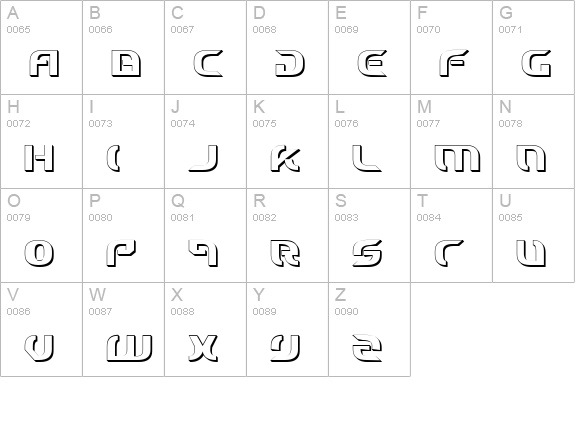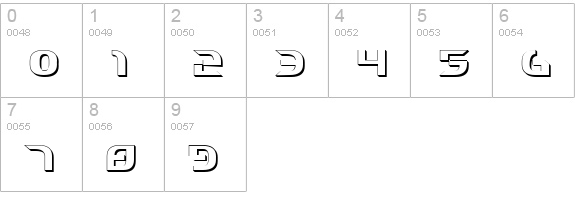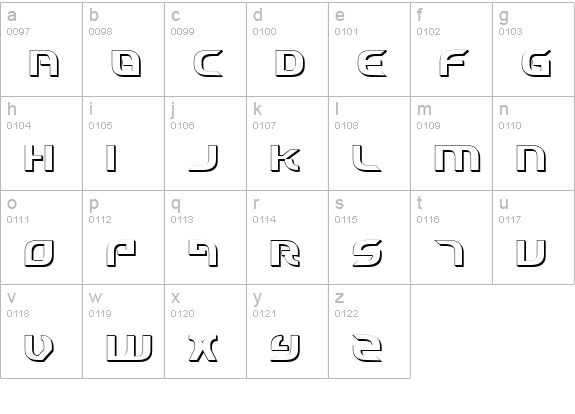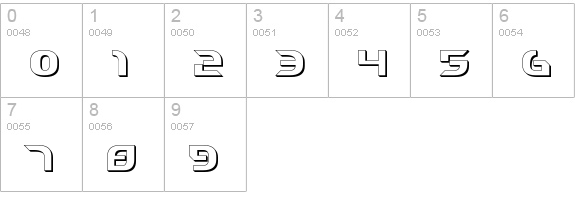
Introducing Starfighter Cadet 3D font, a futuristic and dynamic typeface that brings a sense of adventure and innovation to your projects. With its sleek lines and bold design, this font is perfect for creating eye-catching titles, headings, and logos that will make a lasting impression. What sets Starfighter Cadet 3D font apart is its unique three-dimensional effect, adding depth and dimension to your text. Whether you're designing a sci-fi poster, video game graphics, or promotional materials for a tech startup, this font will take your design to the next level. Best of all, Starfighter Cadet 3D font is completely free to download at FontsMarket.com. So why wait? Add this exciting font to your collection today and let your creativity soar to new heights!